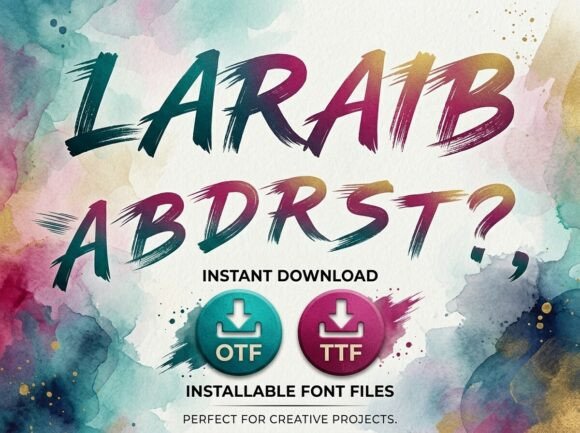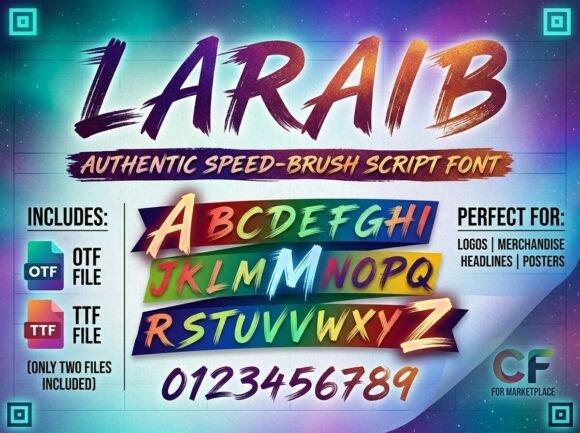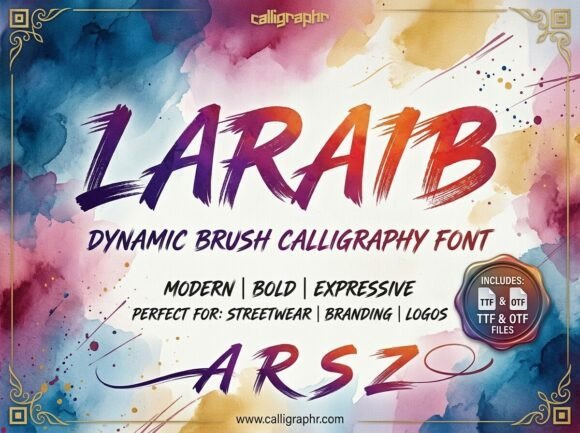
Introduction to Laraib Font
Ignite your designs with the raw energy of Laraib, a dynamic brush calligraphy font that strikes the perfect balance between modern and expressive.
Laraib is the definitive choice for streetwear branding, high-impact logos, sports apparel, and cinematic social media headers .
Key Features of Laraib Font
Why Choose Laraib Font?
Laraib Font offers exceptional quality and versatility, making it a valuable addition to your design toolkit. Whether you’re creating for personal projects or commercial use, Laraib Font delivers professional results.